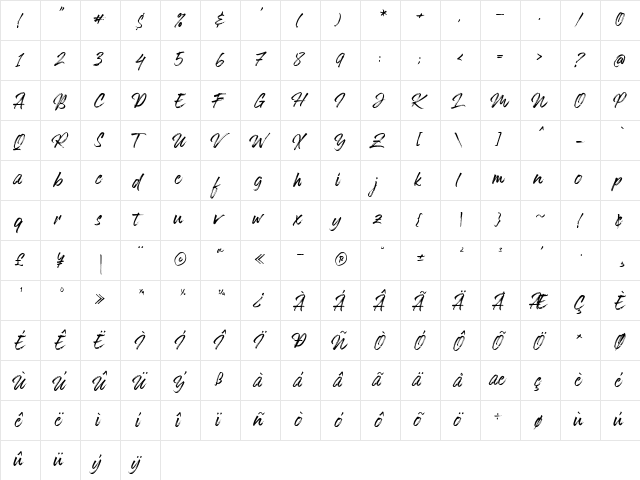
Hokagata Regular
| Foundry | Fargun Studio |
| Designer | Fargun Studio |
Design Context for Hokagata Typeface
Hokagata is a composed and adaptable typeface that performs quietly and consistently across a wide range of design contexts.